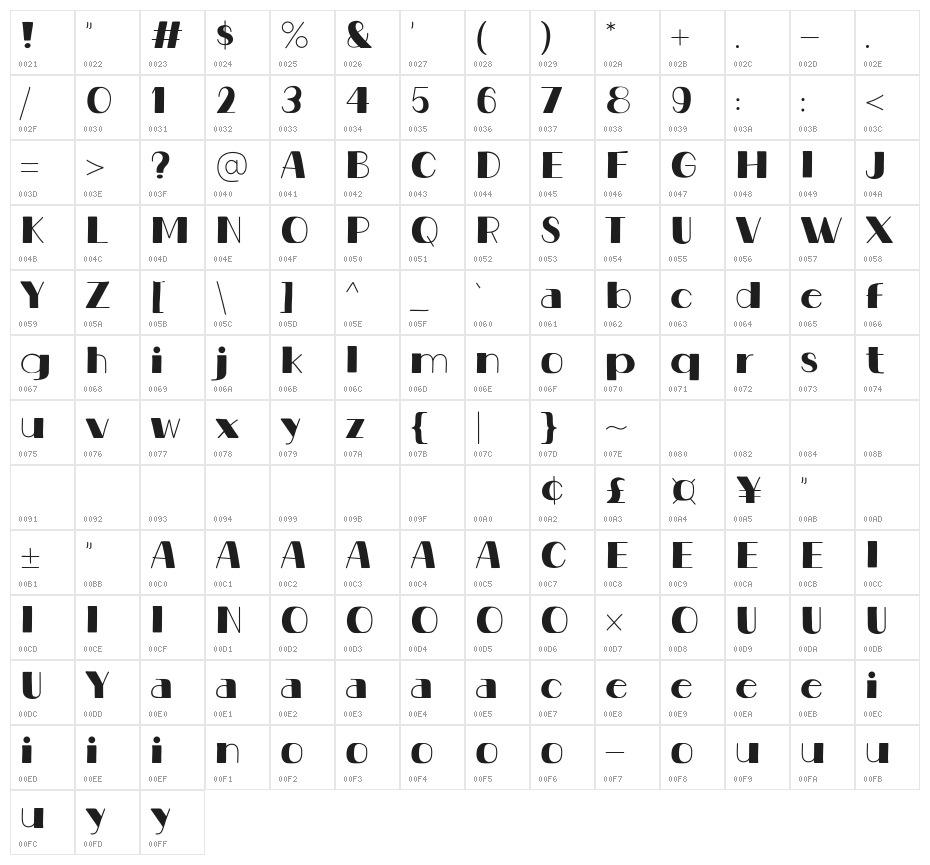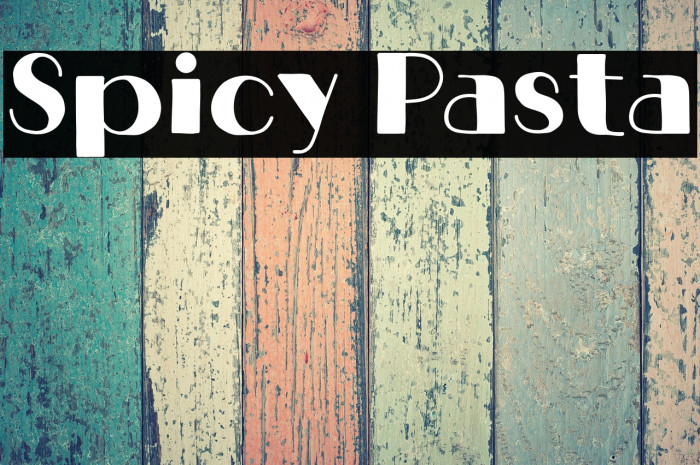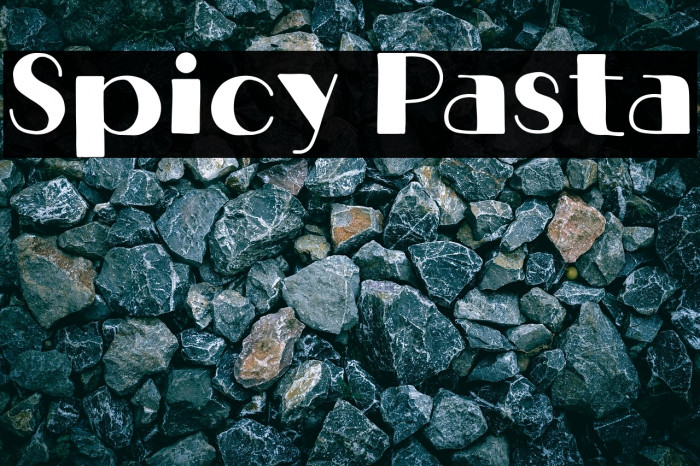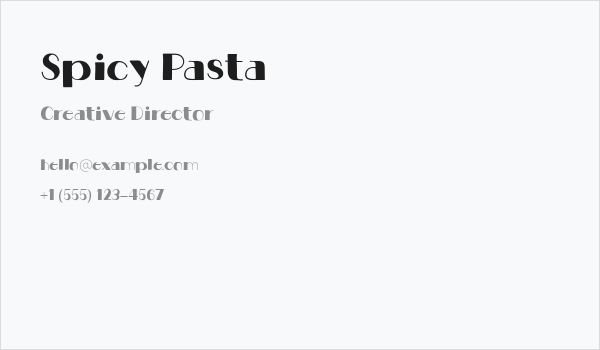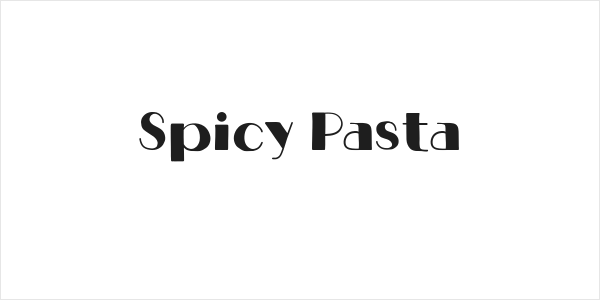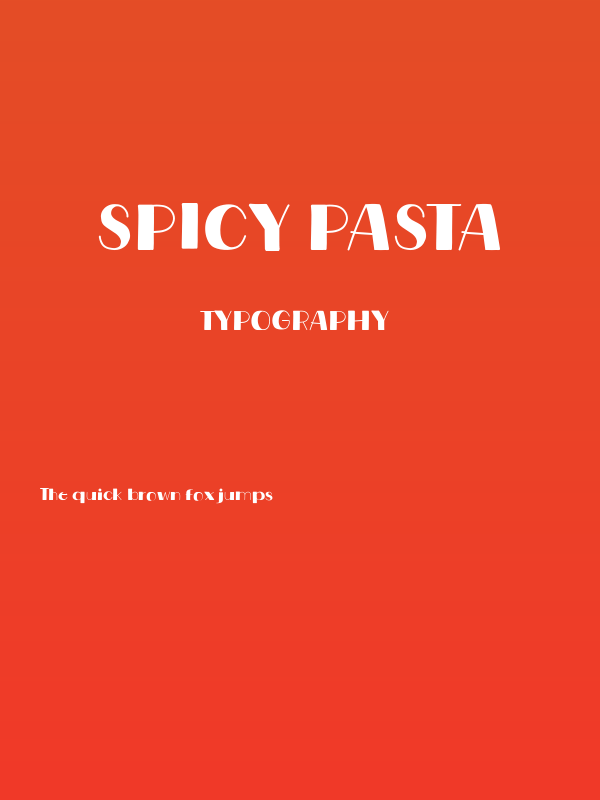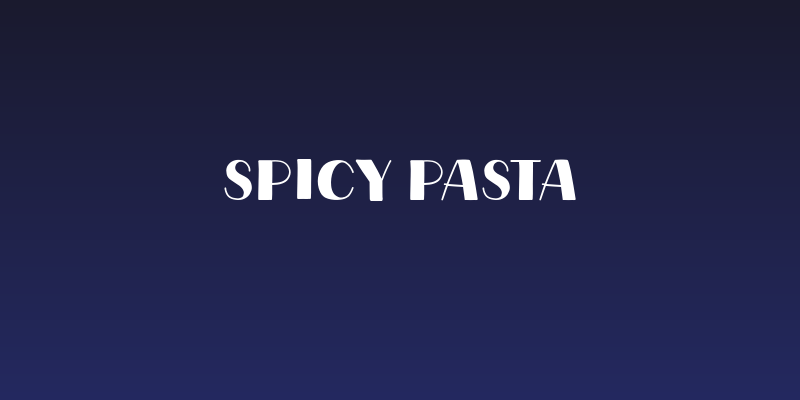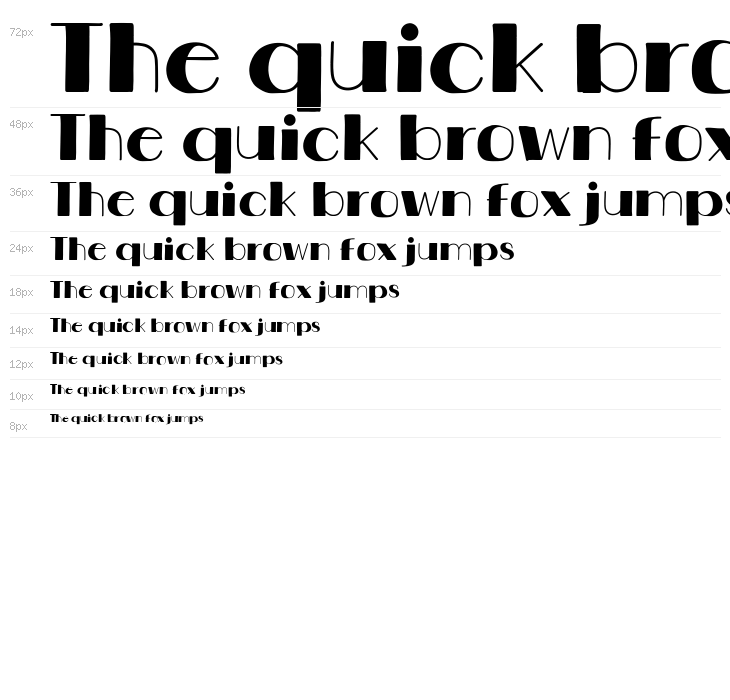
Spicy Pasta Font
Spicy Pasta Description
This font features a playful and dynamic style with a mix of thick and thin strokes, giving it a lively and energetic appearance. The uppercase letters are bold and assertive, while the lowercase letters maintain a more casual and approachable feel. The numerals are consistent with the overall style, providing a cohesive look. Special characters are creatively designed, adding to the font's unique charm. The combination of varying stroke widths and slightly irregular shapes contributes to its distinctive and eye-catching aesthetic.